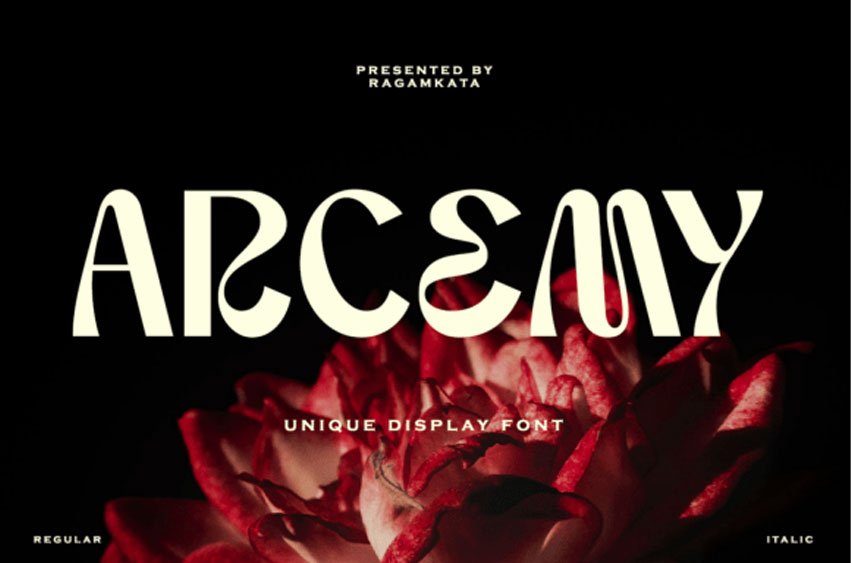
Arcemy Font is a unique display sans font. Arcemy offers versatility for a range of design projects. Its unique letter proportions create a friendly and approachable feel.
A carefully curated selection of alternates further enhances the font’s rhythmic and dynamic personality. Arcemy is perfectly suited for headlines, titles, branding, posters, and any project where a touch of retro charm and modern sensibility is desired.